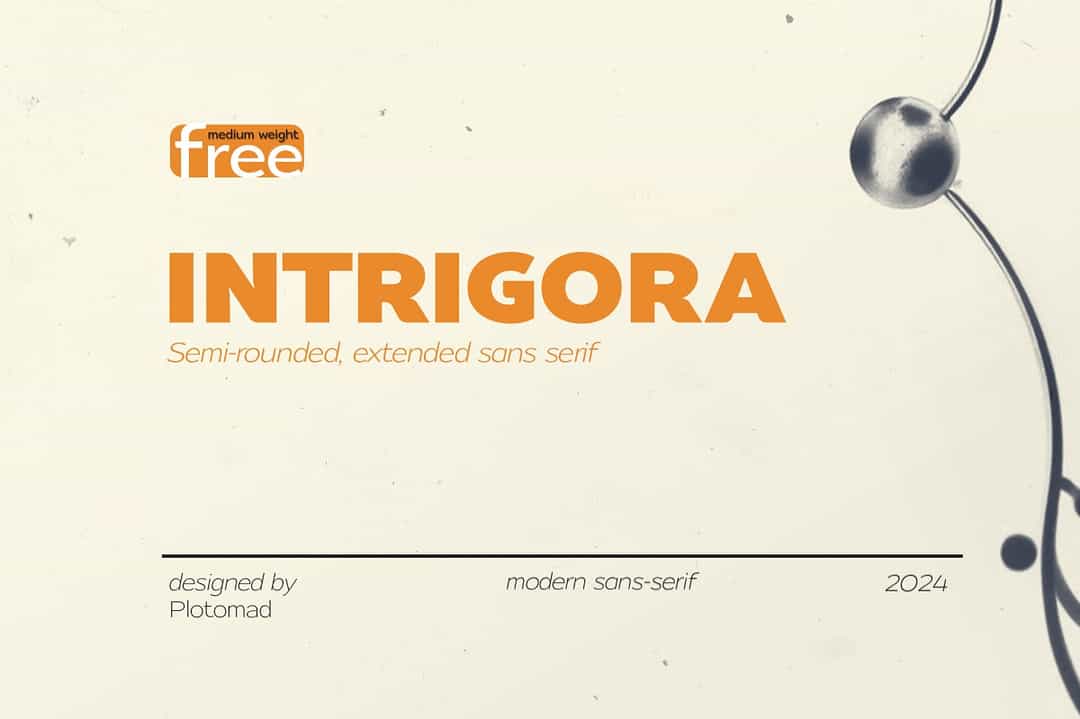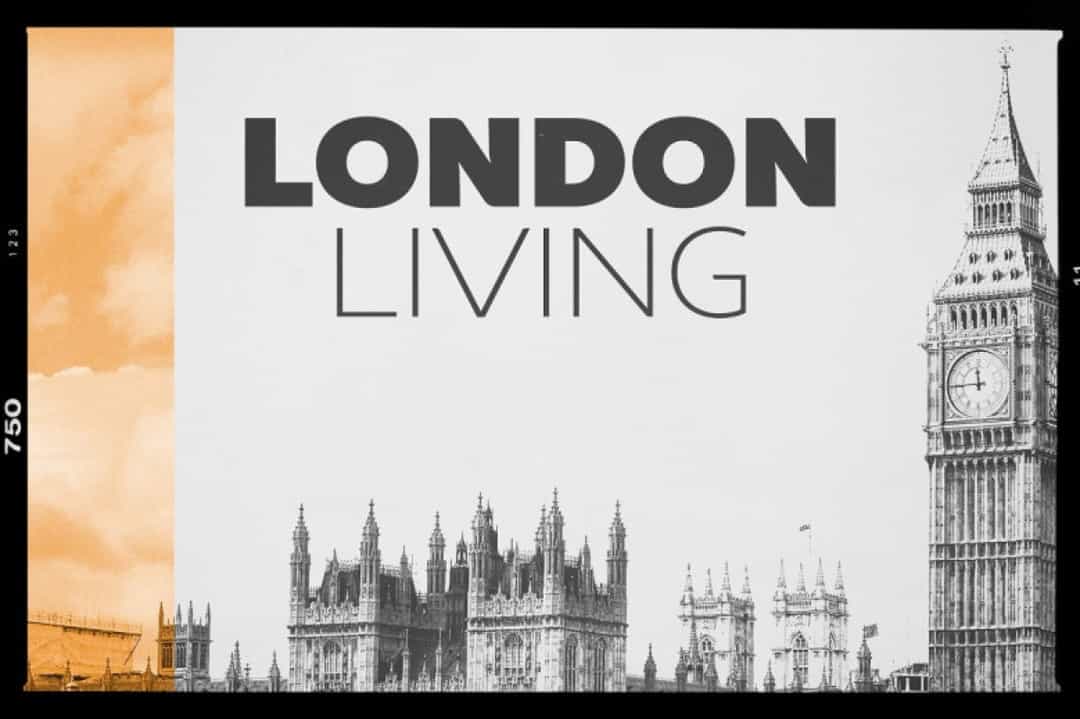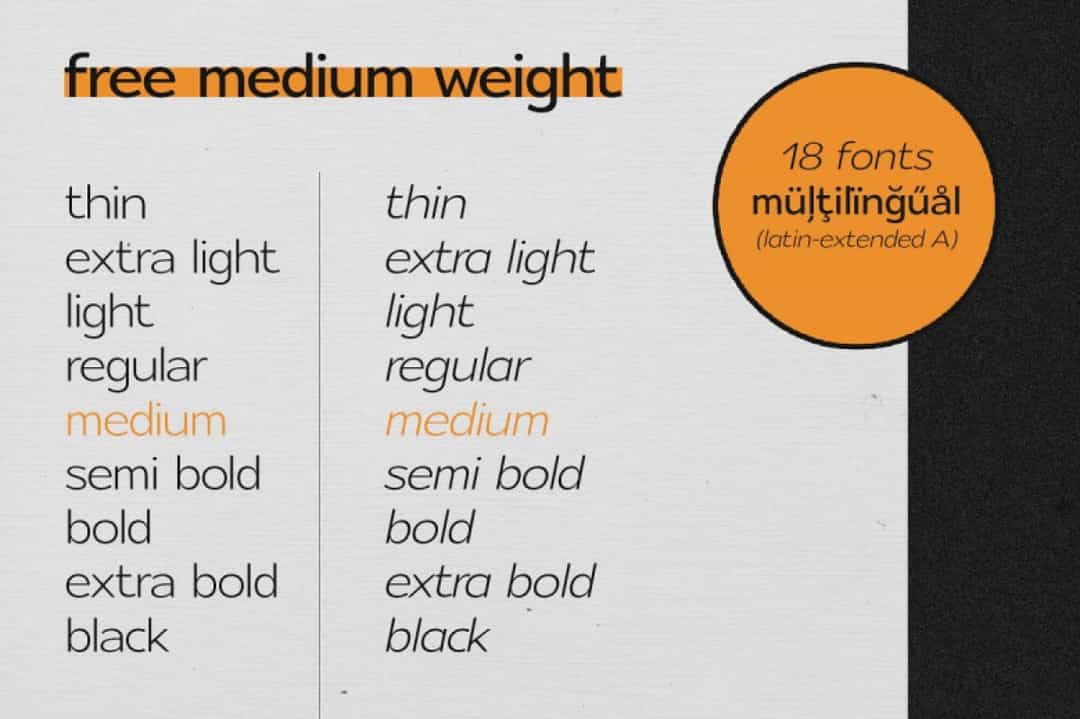
Intrigora embodies modern typography with its sleek, contemporary style and cozy warmth of its rounded font. It is versatile enough to transition seamlessly between different design contexts while further strengthening branding efforts and drawing attention to headlines.